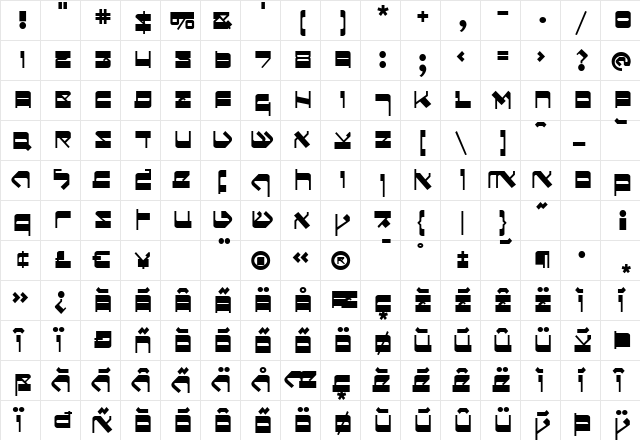
CircumcisionSansBold Regular
Design Context for CircumcisionSansBold Typeface
CircumcisionSansBold is a composed and adaptable typeface that performs quietly and consistently across a wide range of design contexts. The heavy weight commands attention and anchors typographic hierarchies.